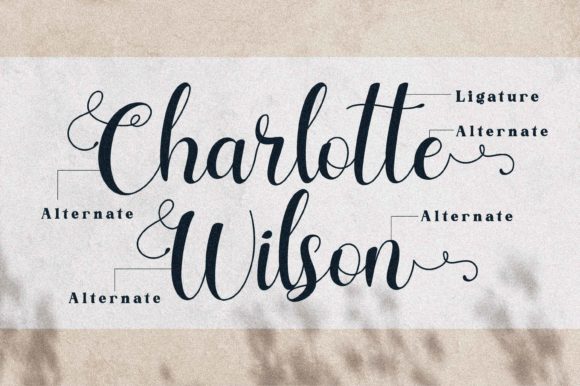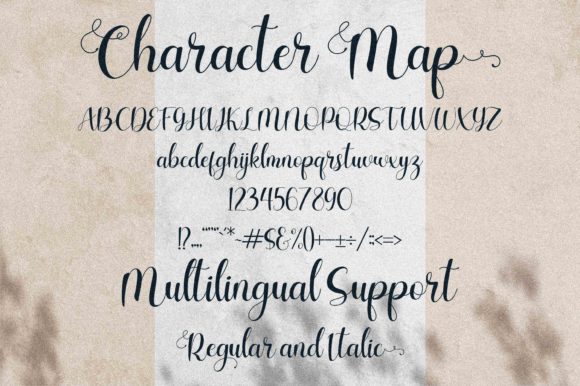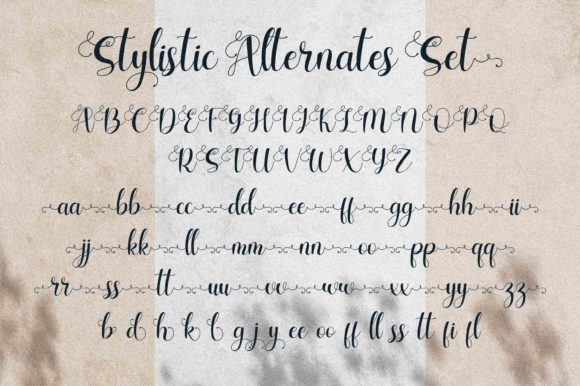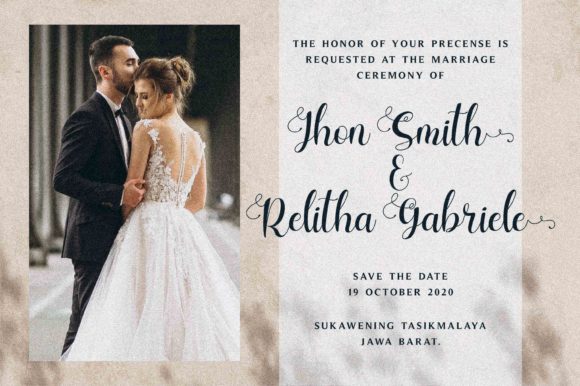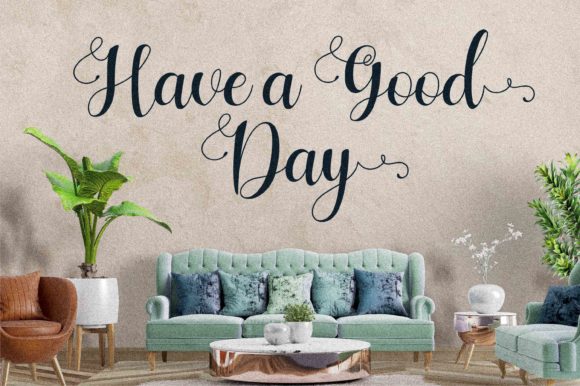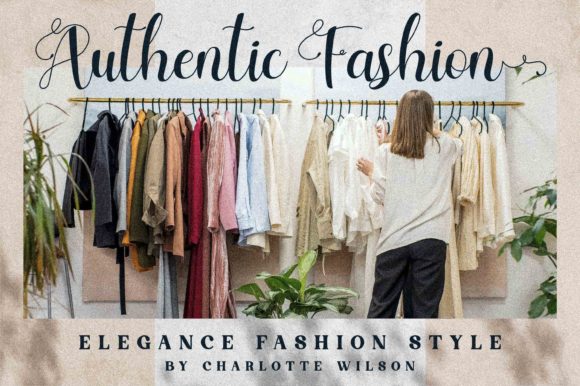
Introducing Charlotte Wilson Font: A Romantic Calligraphy Script
Are you looking for a beautiful script font to elevate your design projects? Look no further than Charlotte Wilson Font, a stunning romantic calligraphy font that is perfect for adding a touch of elegance and sophistication to your creations. With its unique contrast between thick letters and delicate swashes, this font is sure to capture the hearts of designers, crafters, and anyone looking for a beautiful script taste.
What Makes Charlotte Wilson Font Special?
Charlotte Wilson Font is a versatile script font that is suitable for a wide range of projects, including logos, branding projects, homeware designs, product packaging, mugs, quotes, posters, shopping bags, t-shirts, book covers, name cards, invitation cards, greeting cards, labels, photography, watermarks, and special events. Its romantic and elegant feel makes it perfect for any project that requires a touch of sophistication and glamour.
Key Features of Charlotte Wilson Font
- Beautiful Script Style: Charlotte Wilson Font features a stunning script style with a unique contrast between thick letters and delicate swashes, making it perfect for adding a touch of elegance to your designs.
- PUA Encoded: This font is PUA encoded, which means you can access the available glyphs and swashes with ease, giving you more creative freedom and flexibility.
- Wide Range of Uses: From logos and branding projects to homeware designs and special events, Charlotte Wilson Font is a versatile font that can be used for a wide range of projects.
Why Designers and Crafters Love Charlotte Wilson Font
Designers and crafters love Charlotte Wilson Font for its unique and elegant style, which adds a touch of sophistication to any project. The font’s versatility and flexibility make it perfect for a wide range of applications, from digital designs to print materials. Additionally, the font’s PUA encoding makes it easy to use and customize, giving designers and crafters more creative freedom.
Tips and Inspiration for Using Charlotte Wilson Font
Here are a few tips and inspiration for using Charlotte Wilson Font:
- Pair it with Other Fonts: Charlotte Wilson Font pairs perfectly with other fonts, such as sans-serif fonts or serif fonts. Experiment with different font combinations to create unique and interesting designs.
- Use it for Headlines and Titles: The font’s elegant and sophisticated style makes it perfect for headlines and titles. Use it to add a touch of glamour to your designs.
- Experiment with Colors and Textures: Charlotte Wilson Font looks great in a variety of colors and textures. Experiment with different colors and textures to add depth and interest to your designs.
Charlotte Wilson Font is a beautiful and versatile script font that is perfect for designers, crafters, and anyone looking for a romantic calligraphy font. With its unique contrast between thick letters and delicate swashes, this font is sure to add a touch of elegance and sophistication to any project. Its PUA encoding makes it easy to use and customize, giving designers and crafters more creative freedom and flexibility. Whether you’re working on a logo, branding project, or special event, Charlotte Wilson Font is a great choice.